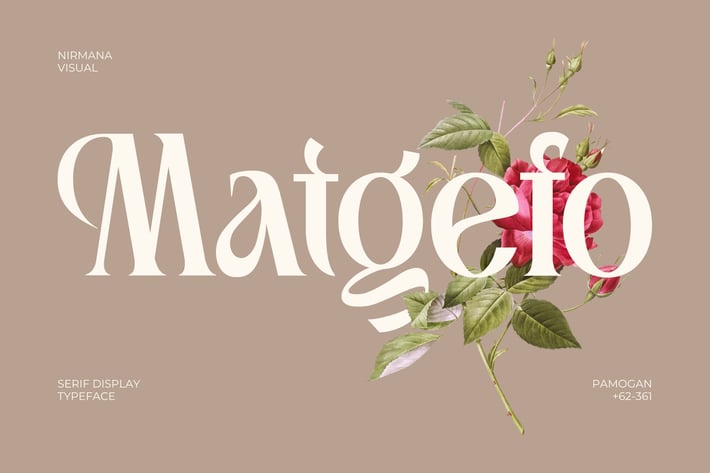
Matgefo Vintage - Logo Font
Matgefo Vintage
Matgefo Vintage offers beautiful typographic harmony for a diversity of design projects, including logos & branding, social media posts, advertisements & product designs.